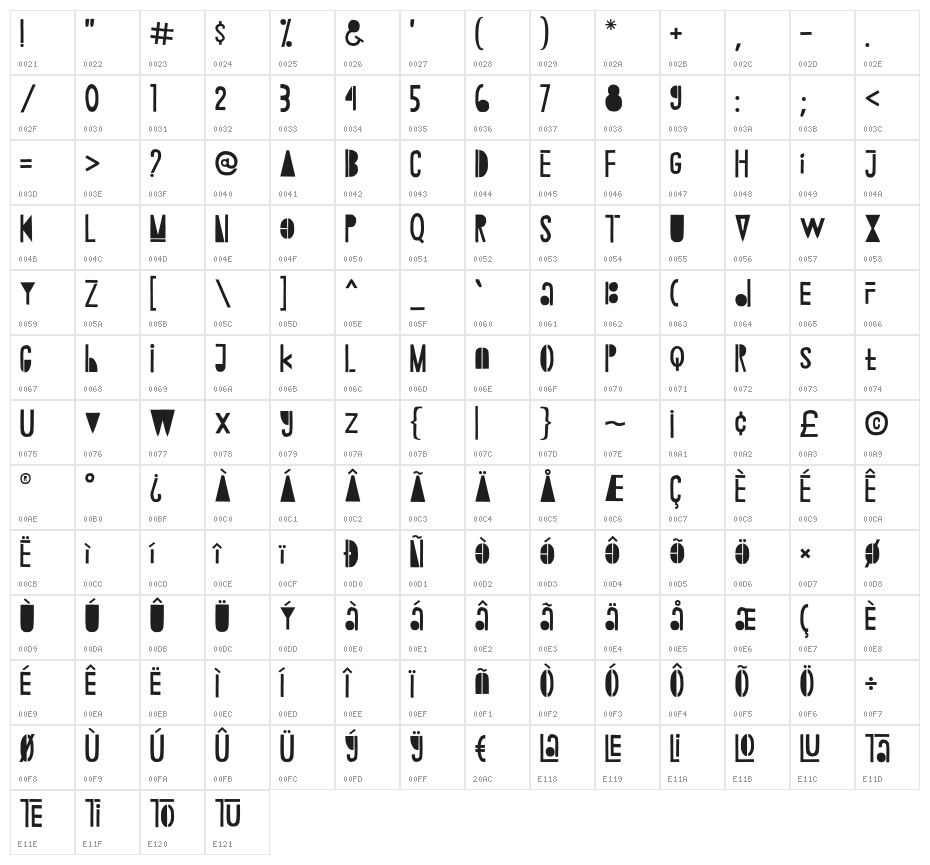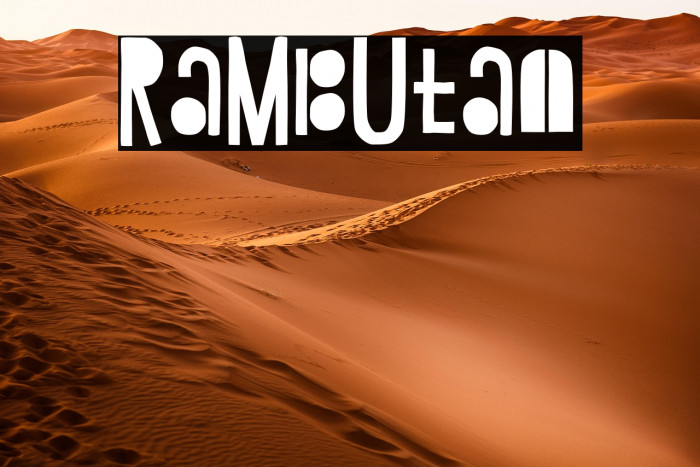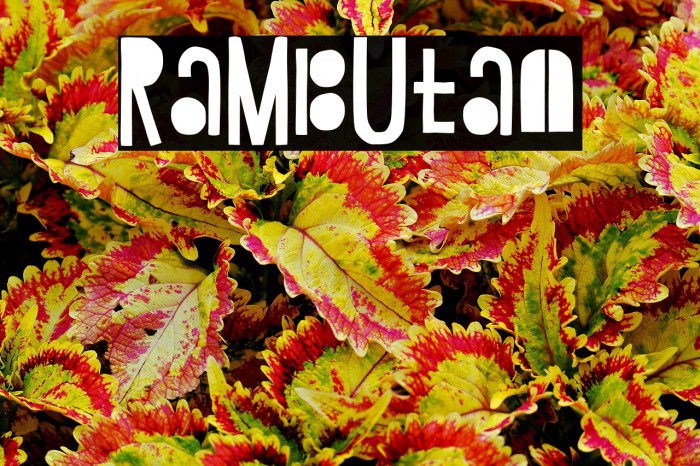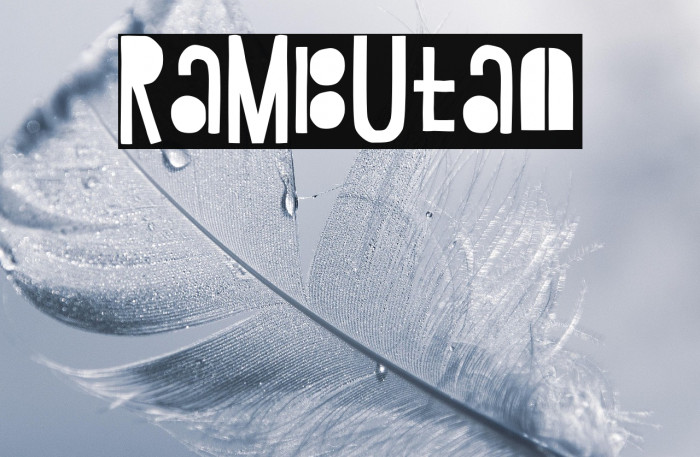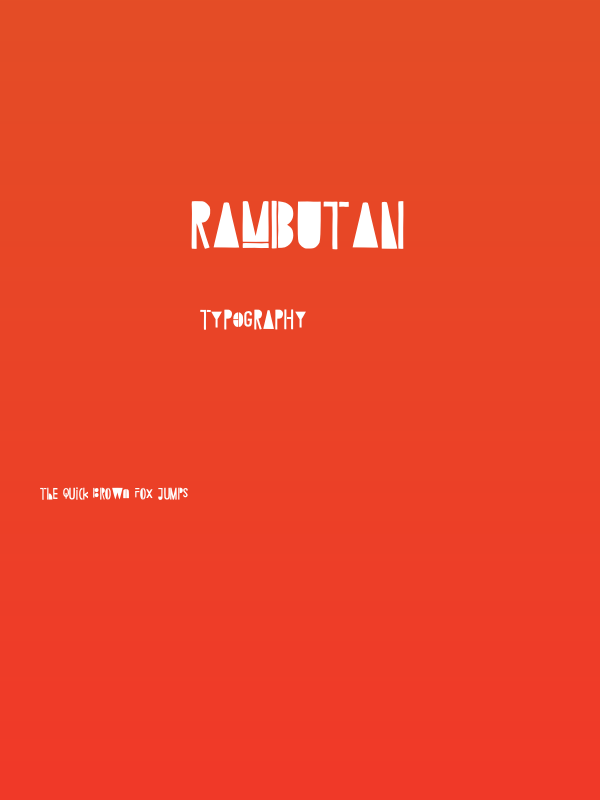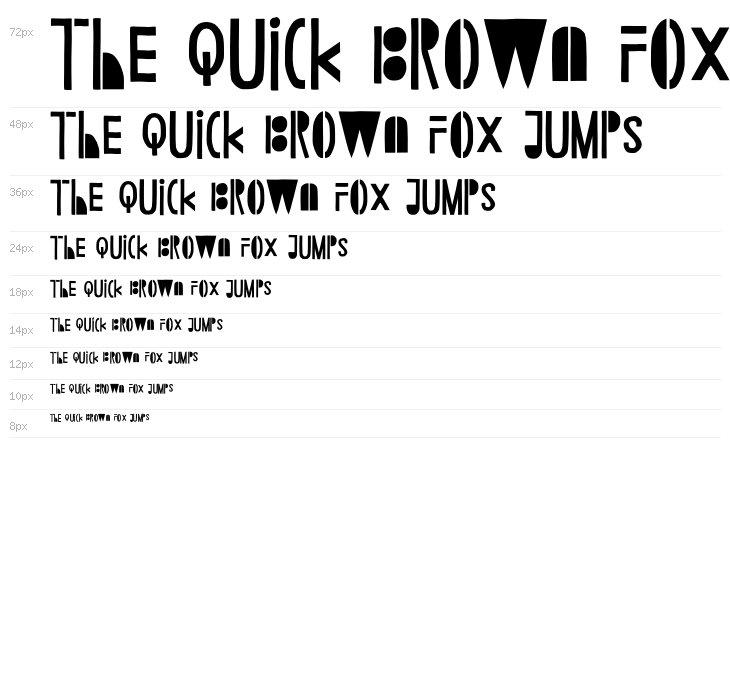
Rambutan Font
Rambutan Description
This font features a bold and playful design with a strong geometric influence. The characters are constructed with thick, solid strokes and incorporate unique shapes, such as triangles and semicircles, creating a distinctive and eye-catching appearance. The uppercase letters are particularly striking, with some characters like 'A', 'V', and 'W' using inverted triangular forms. The lowercase letters maintain the geometric theme, offering a cohesive look across the typeface. Numbers and special characters follow the same bold style, ensuring consistency throughout. This font's design is both modern and artistic, making it suitable for creative and dynamic projects.
| Proposed Projects | Ideal for posters, branding, album covers, and any project requiring a bold, artistic touch. |